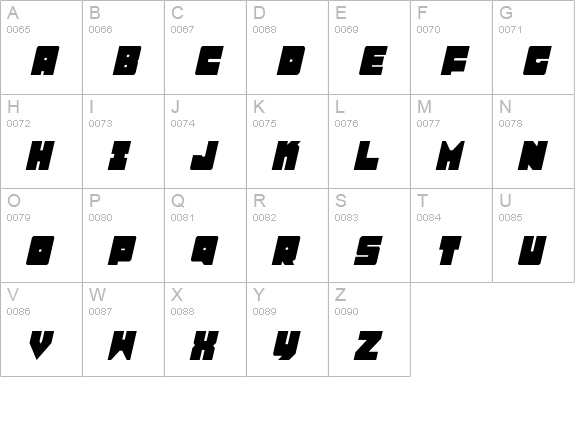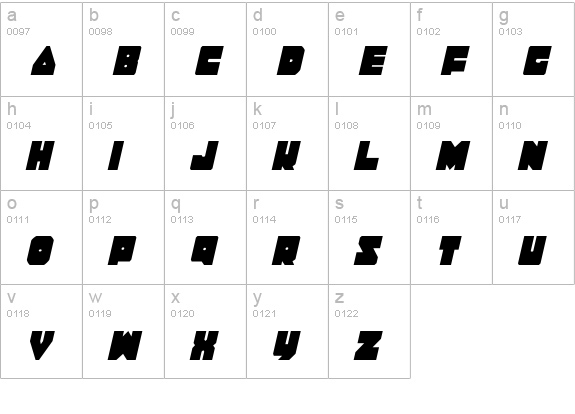
Lobo Tommy CondItalic font is a sleek and stylish typeface that exudes modern sophistication. Its condensed italic design adds a touch of elegance to any project, making it perfect for branding, headlines, and graphic design. The sharp angles and clean lines of this font give it a contemporary edge while maintaining readability and clarity. What's even better is that Lobo Tommy CondItalic font is available for free download at FontsMarket.com. This means you can easily access this versatile typeface and incorporate it into your designs without any cost. Whether you're a professional designer or a hobbyist looking to elevate your projects, Lobo Tommy CondItalic font is a fantastic choice that won't break the bank. Download it today and see how it can enhance your creative endeavors!